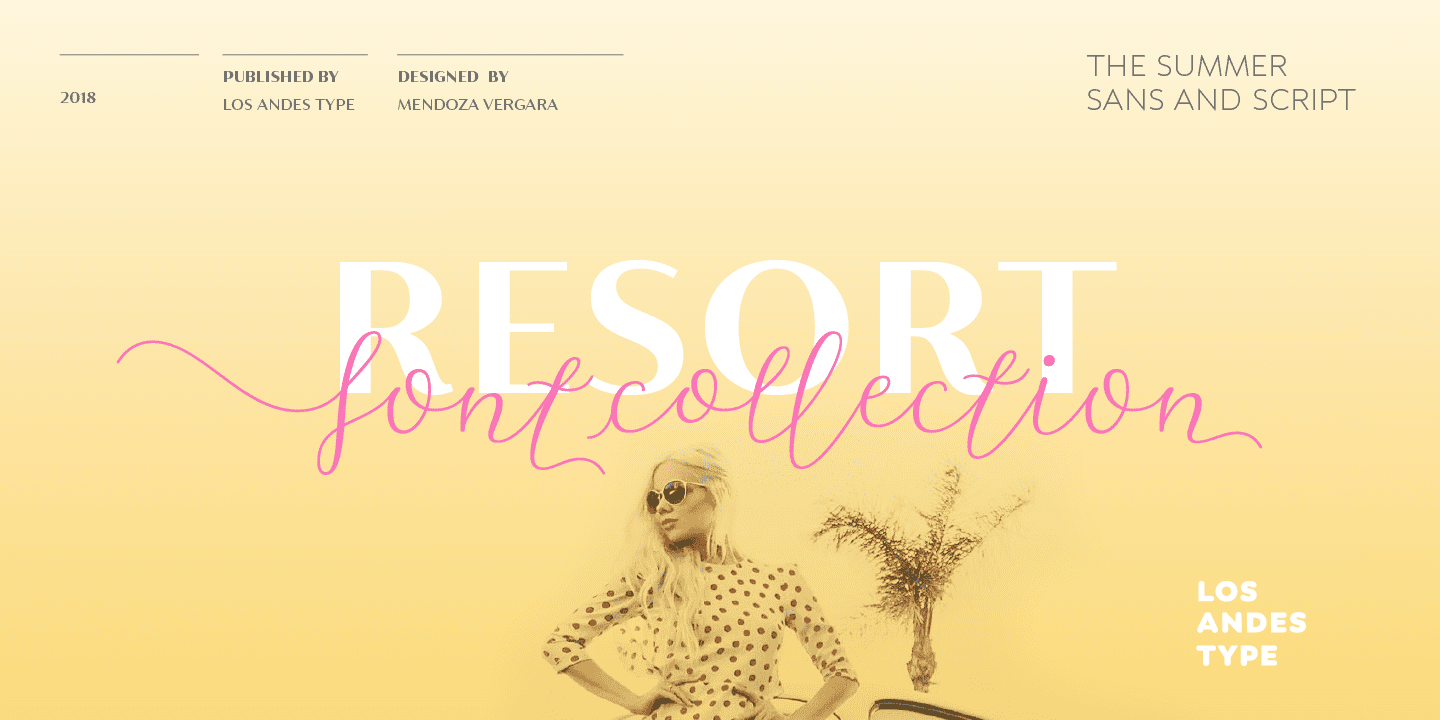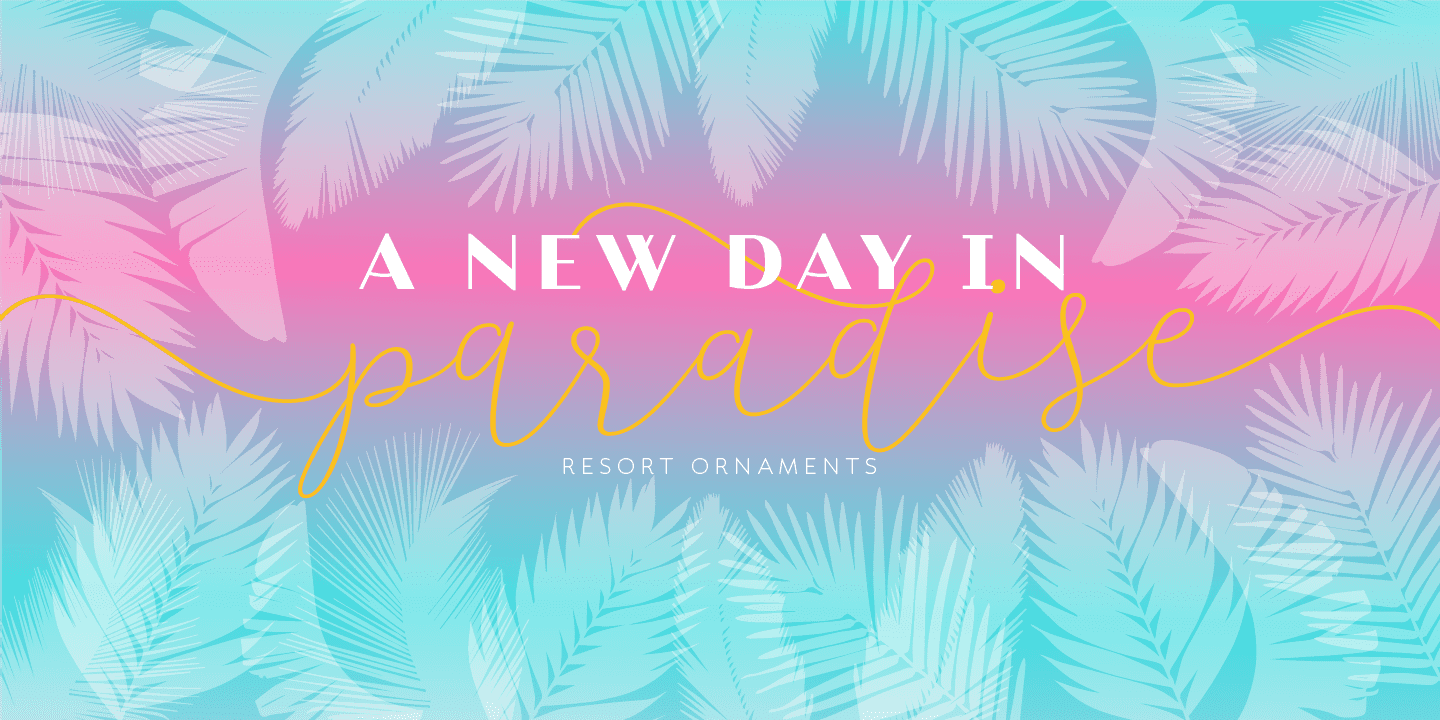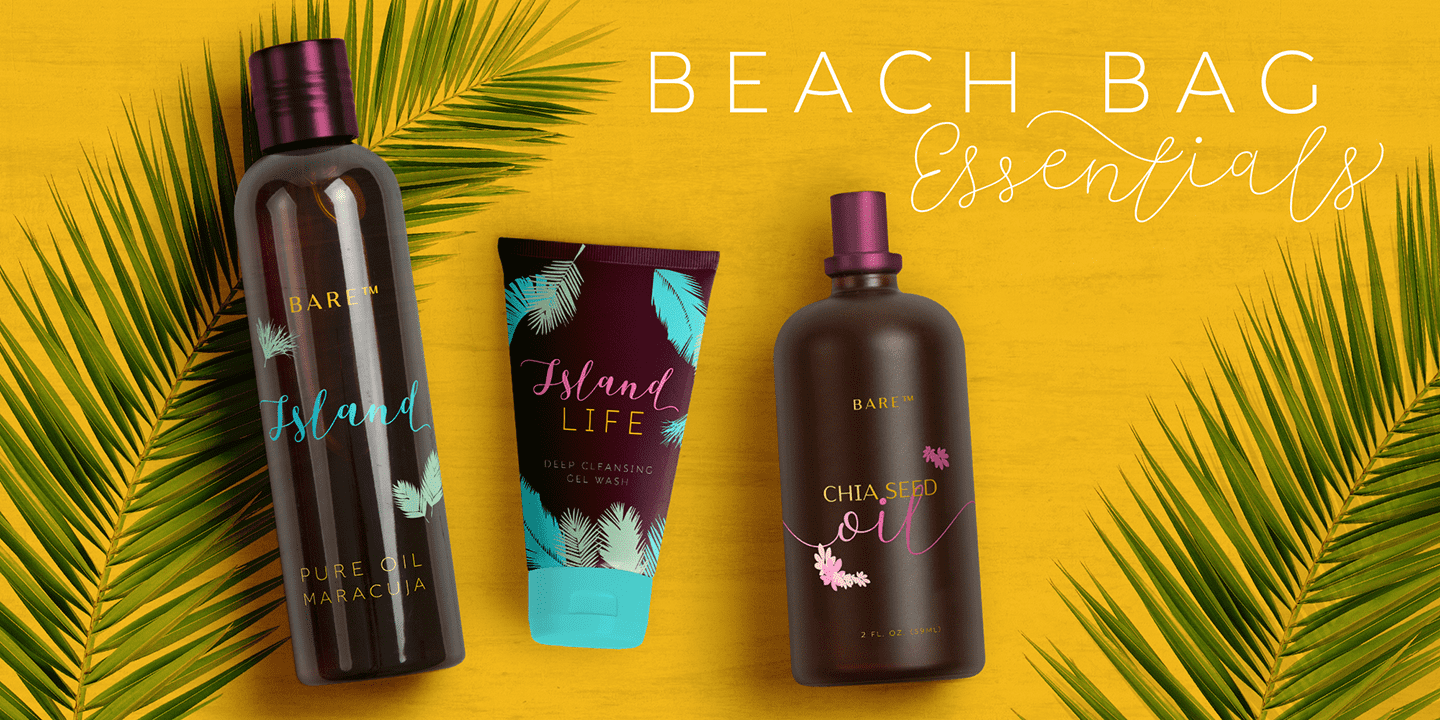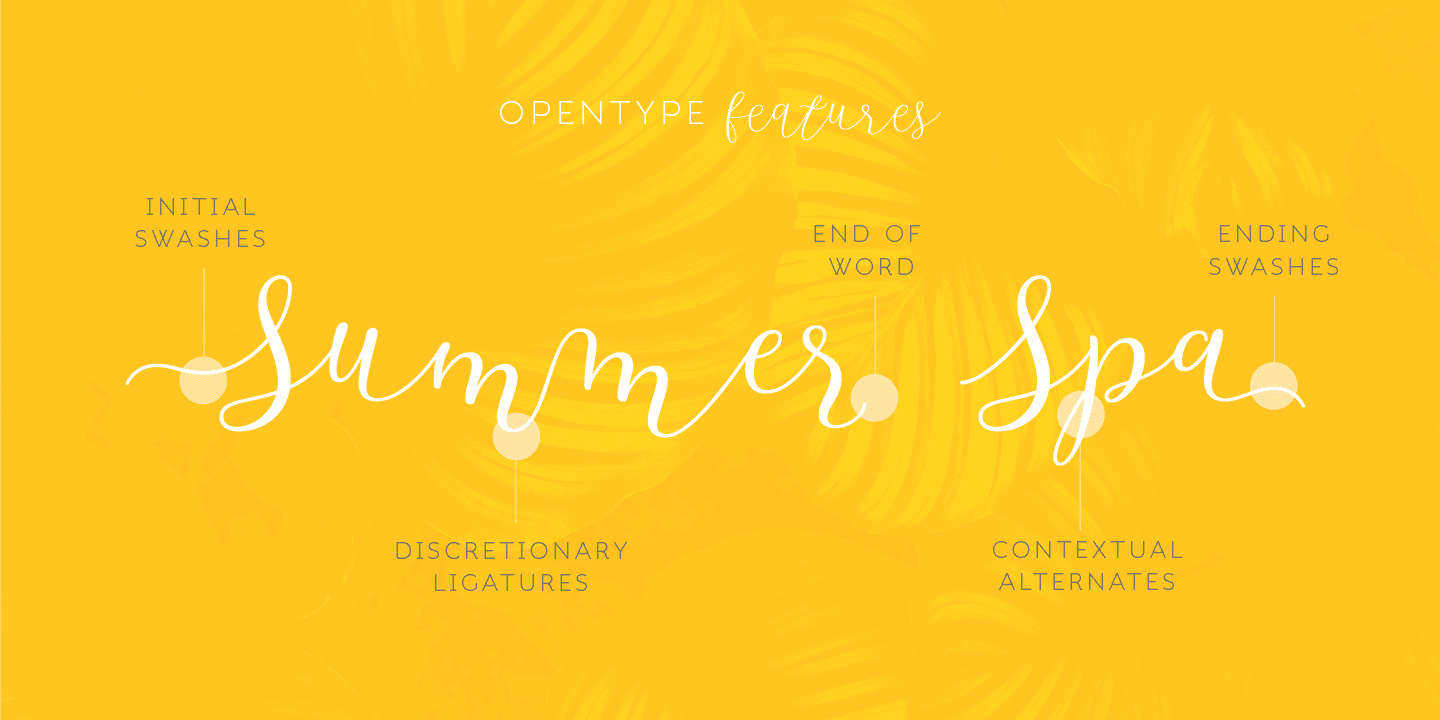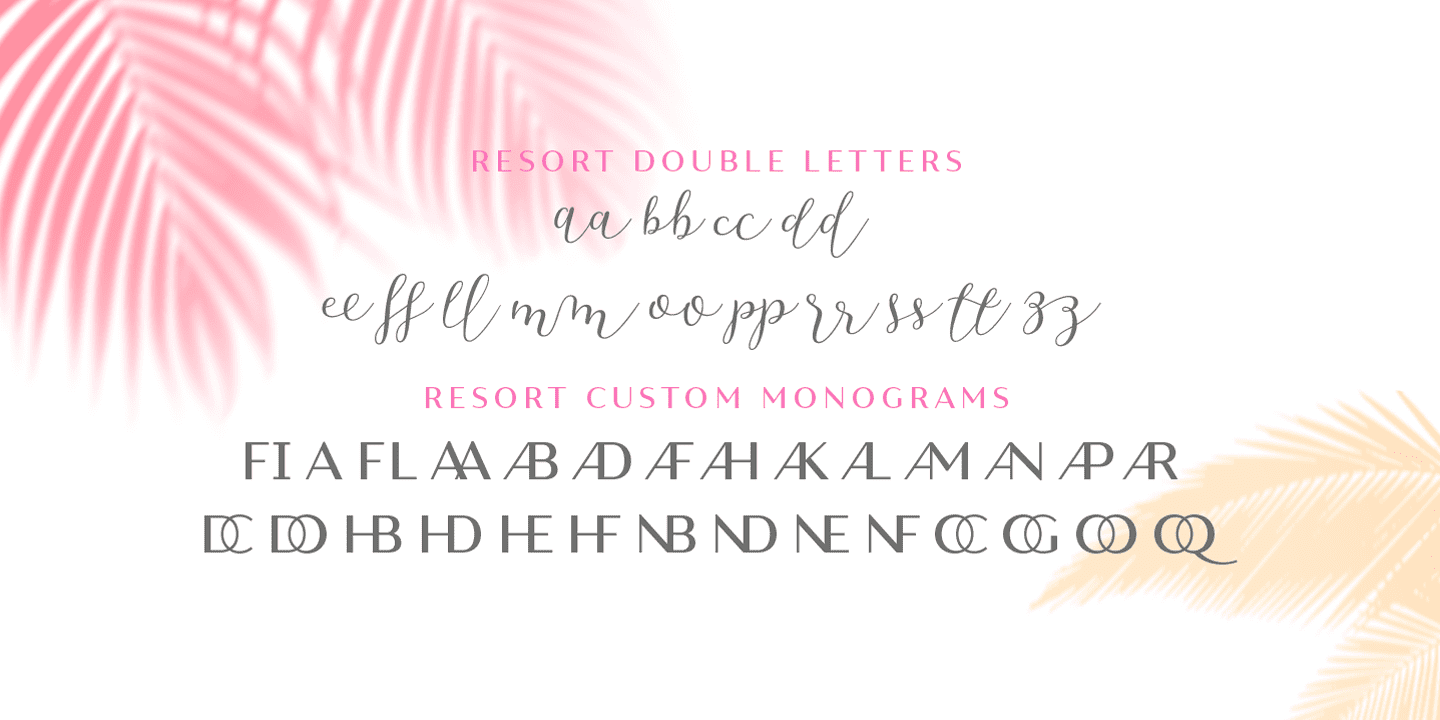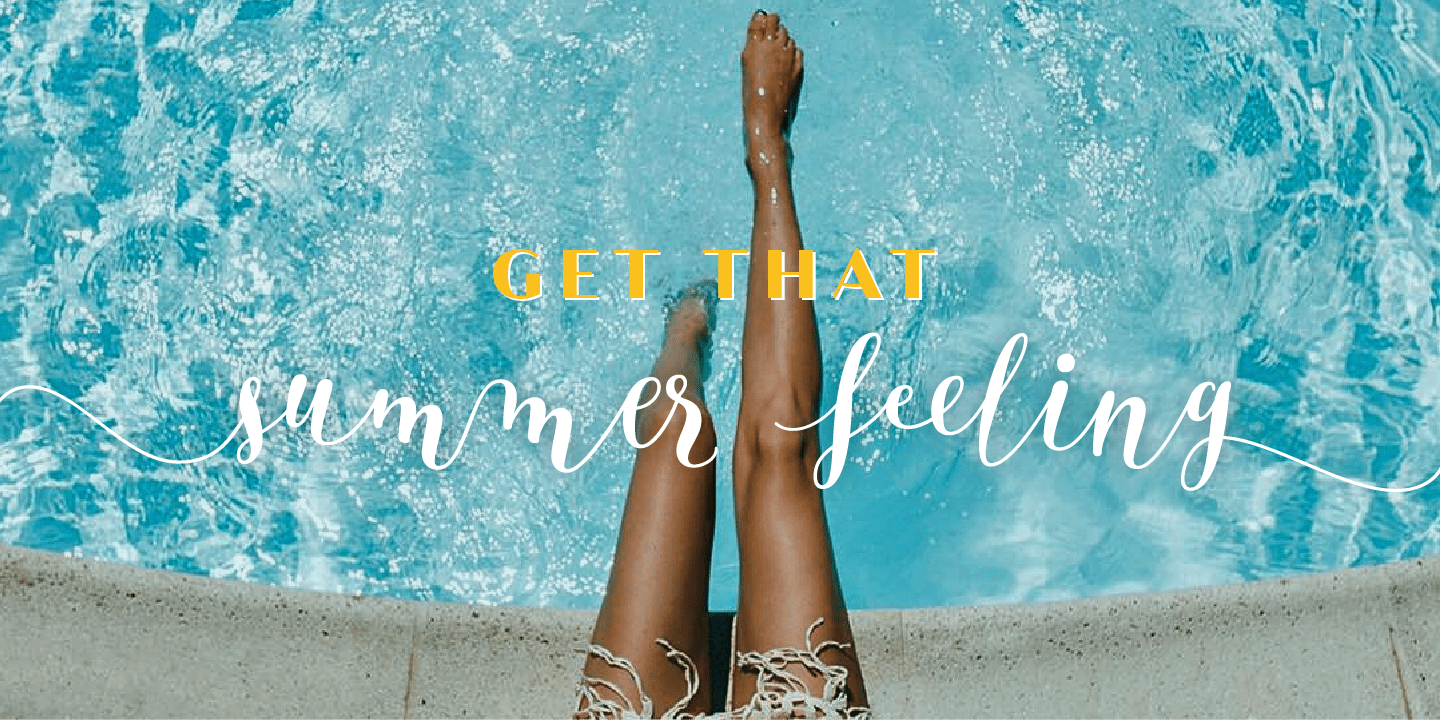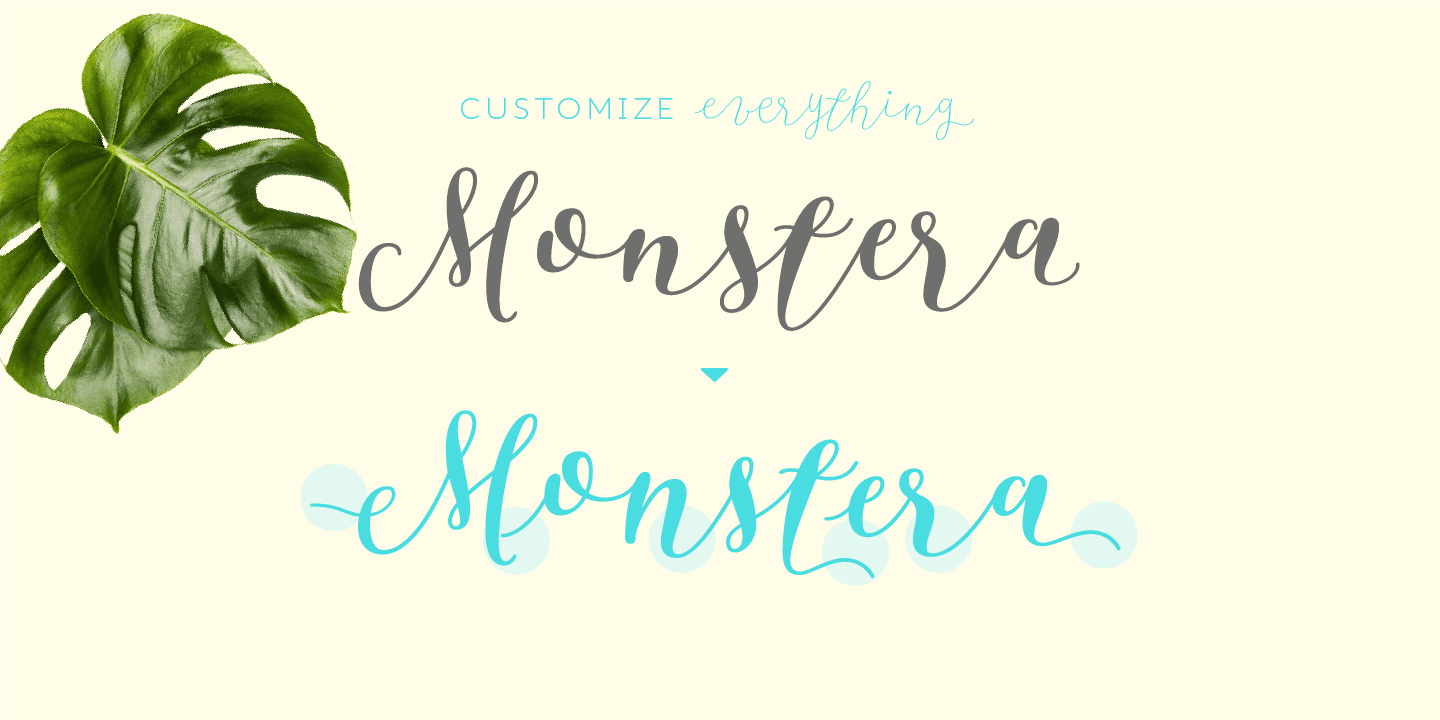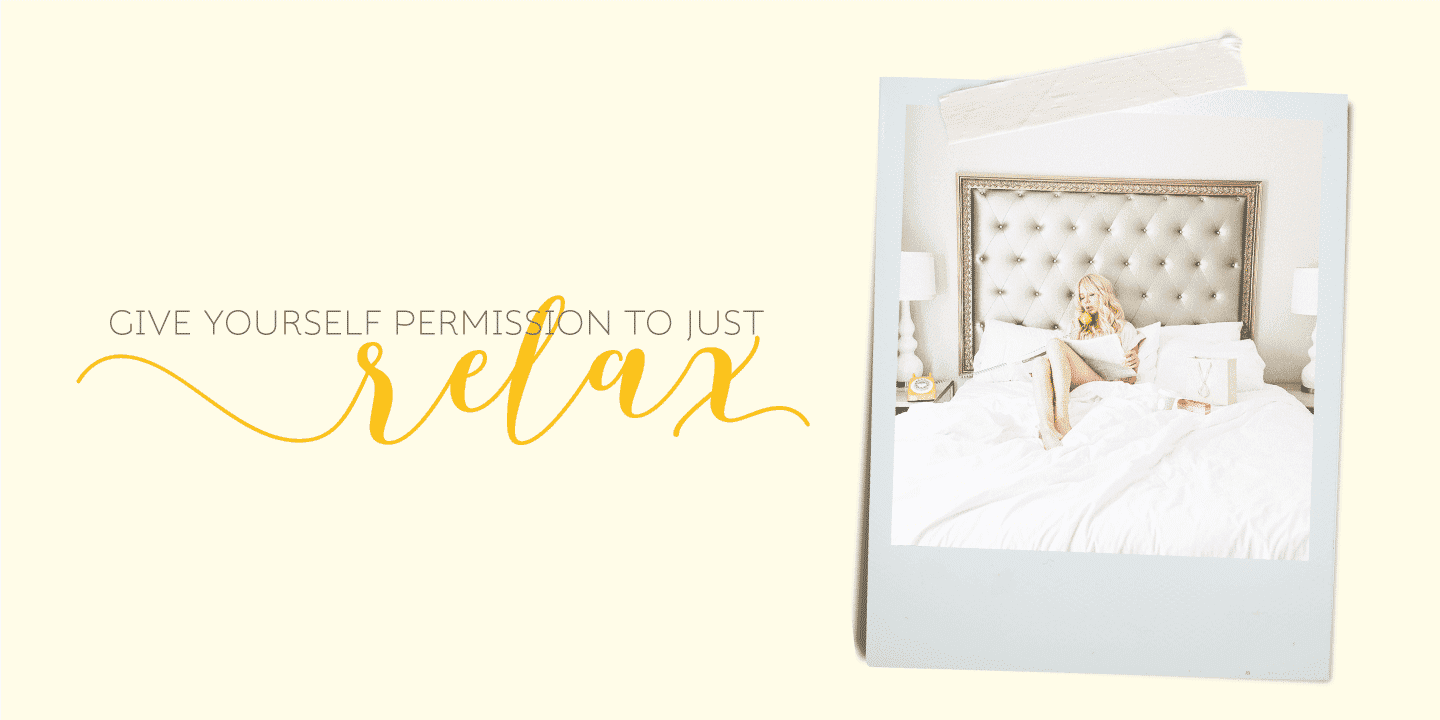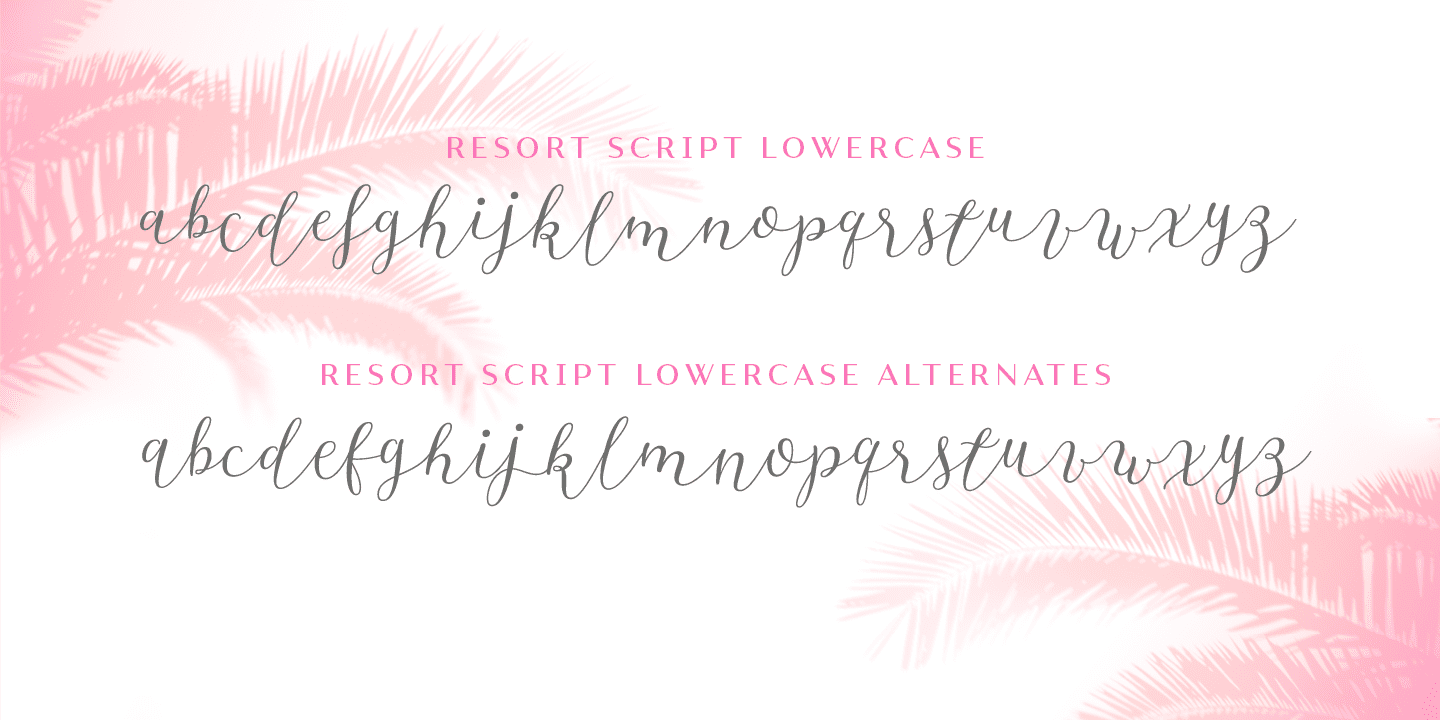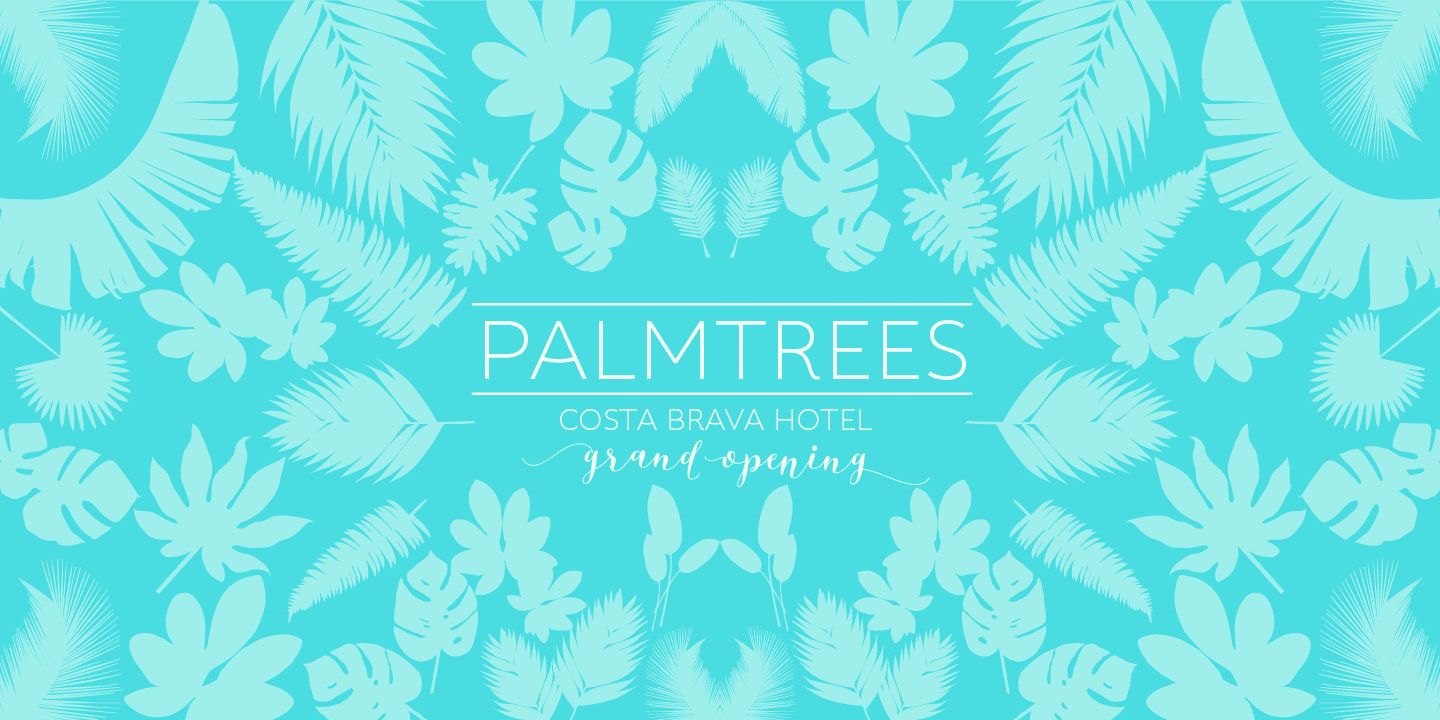
From Los Andes Type
Resort is a font collection consisting of 12 styles and 3 variants: Script, Sans and Ornaments. The font set is intended to provide users with a wide range of choices for any design project.
The collection comes with a relaxing Script of 5 weights and a classic 6-weight Sans, and includes lively floral ornaments.
Resort evokes the feeling of relaxing barefoot walks along the beach while enjoying the sunset and a refreshing cocktail.
OpenType features: Ligatures, Alternates, Contextual Alternates, Swash